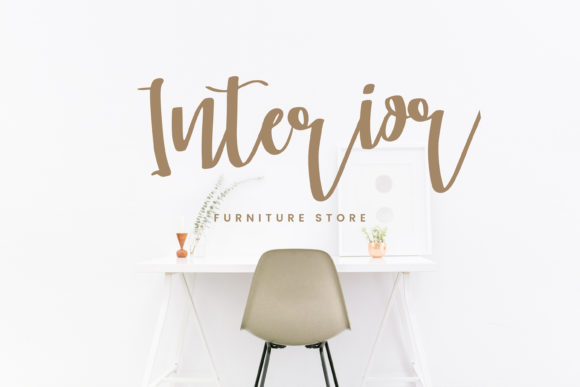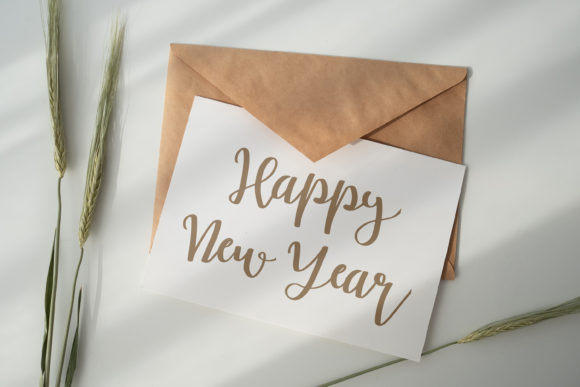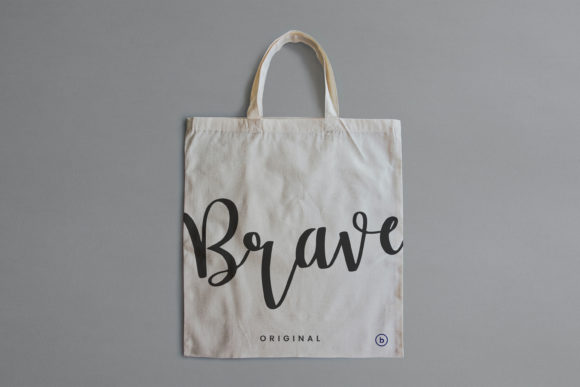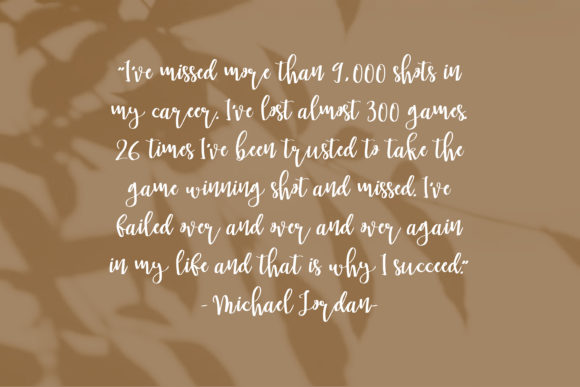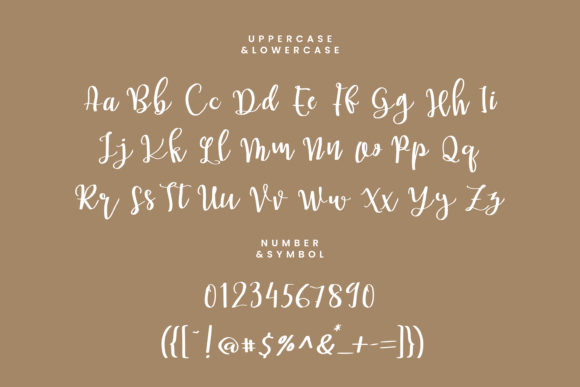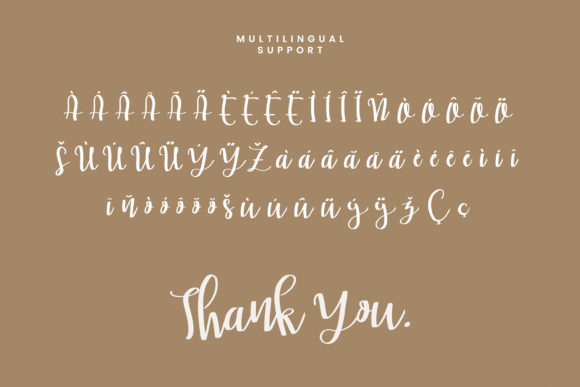
The Ultimate Guide to Besties Font: A Fun and Trendy Handwritten Font
I’ll never forget the time I was working on a wedding invitation project, and my client asked for a font that was “fun, yet elegant.” I scoured the internet, trying out font after font, but nothing seemed quite right. That was until I stumbled upon Besties Font. This gorgeous handwritten font has been a game-changer for my design projects, and I’m excited to share it with you.
A Personal Review of Besties Font
So, what makes Besties Font so special? Let’s dive into the good stuff!
- ✨ Unique and eye-catching: Besties Font has a one-of-a-kind, hand-crafted feel that’s sure to make your designs stand out.
- ✅ Versatile: This font can be used for a wide range of projects, from logos and wedding invitations to headings, t-shirts, and more.
- 💕 Easy to read: Despite its playful nature, Besties Font is surprisingly legible, even at smaller sizes.
Of course, no font is perfect, and Besties Font has a few minor quirks:
- 🤔 Limited use in body text: While Besties Font is amazing for headings and titles, it may not be the best choice for longer blocks of text.
- ⚠️ Some glyphs may require manual adjustment: Depending on your design software, you may need to tweak certain glyphs to get the best results.
- Experiment with OpenType features like ligatures and stylistic alternates to add visual interest.
- Explore the glyphs panel to access alternative characters and stylistic sets.
The Story Behind Besties Font
Besties Font was created with the help of a brush pen, giving it a unique, hand-crafted feel. The designer aimed to create a font that was both fun and elegant, perfect for a wide range of design projects. With its versatility and charm, Besties Font has quickly become a favorite among designers and crafters.
| Font Name | Besties Font |
| Author | DYSA Studio |
| Is Besties Font suitable for body text? | While Besties Font is amazing for headings and titles, it may not be the best choice for longer blocks of text. |